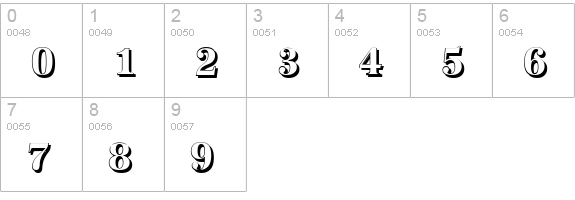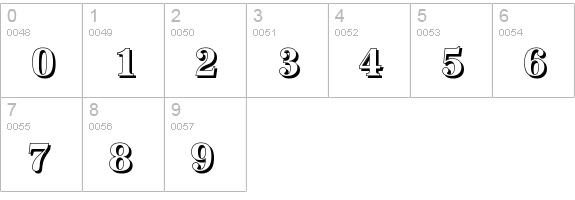
AntiquaSh-Cd-Bold is a strong, high-contrast variant in the AntiquaSh typeface family \xE2\x80\x94 well suited to headlines, attention-grabbing titles, and strong calls-to-action.
AntiquaSh-Cd-Bold is a stunning and elegant font that exudes sophistication and class. With its bold and stylish design, this font is perfect for creating eye-catching headlines, titles, and branding materials. The unique combination of antiquated and modern elements gives AntiquaSh-Cd-Bold a timeless appeal that is sure to make any design stand out. What's even better is that AntiquaSh-Cd-Bold is available for free download at FontsMarket.com. This means you can easily access and use this beautiful font in your projects without any cost. Whether you're working on a professional design project or simply looking to add a touch of elegance to your personal creations, AntiquaSh-Cd-Bold is the perfect choice. Download it now and elevate your designs with this exquisite typeface.